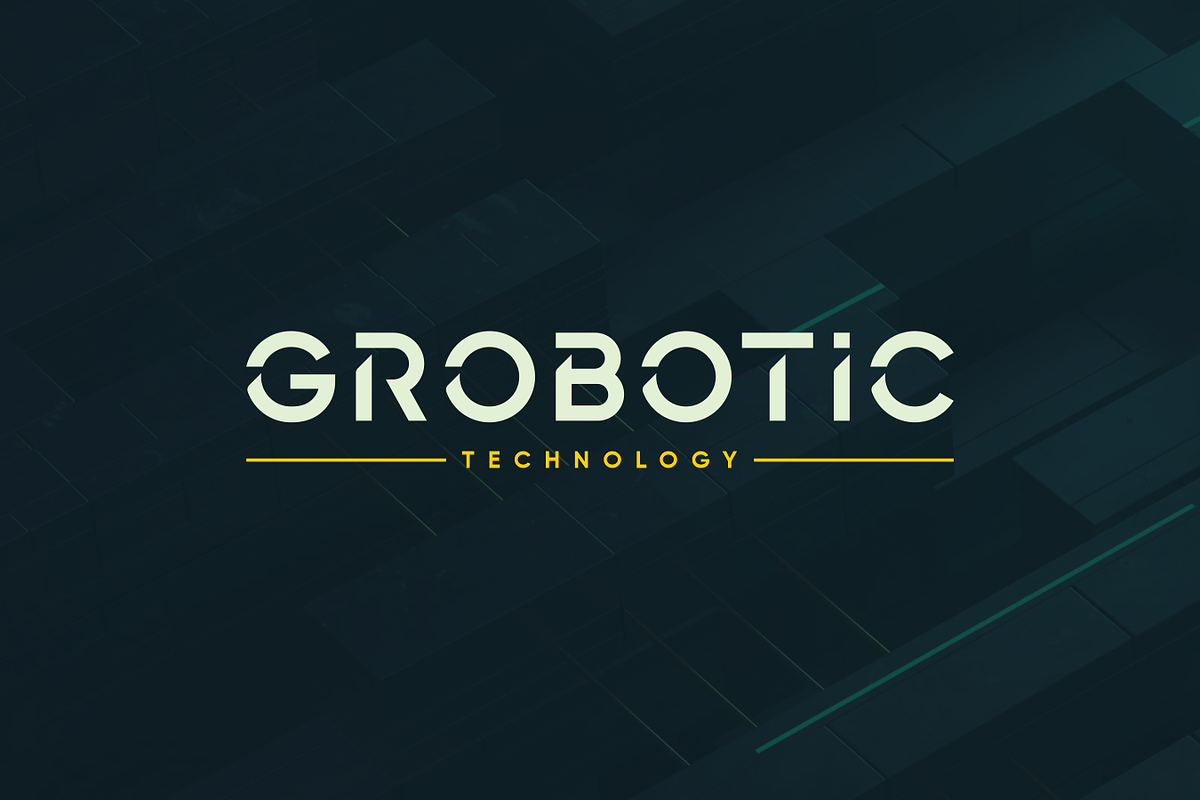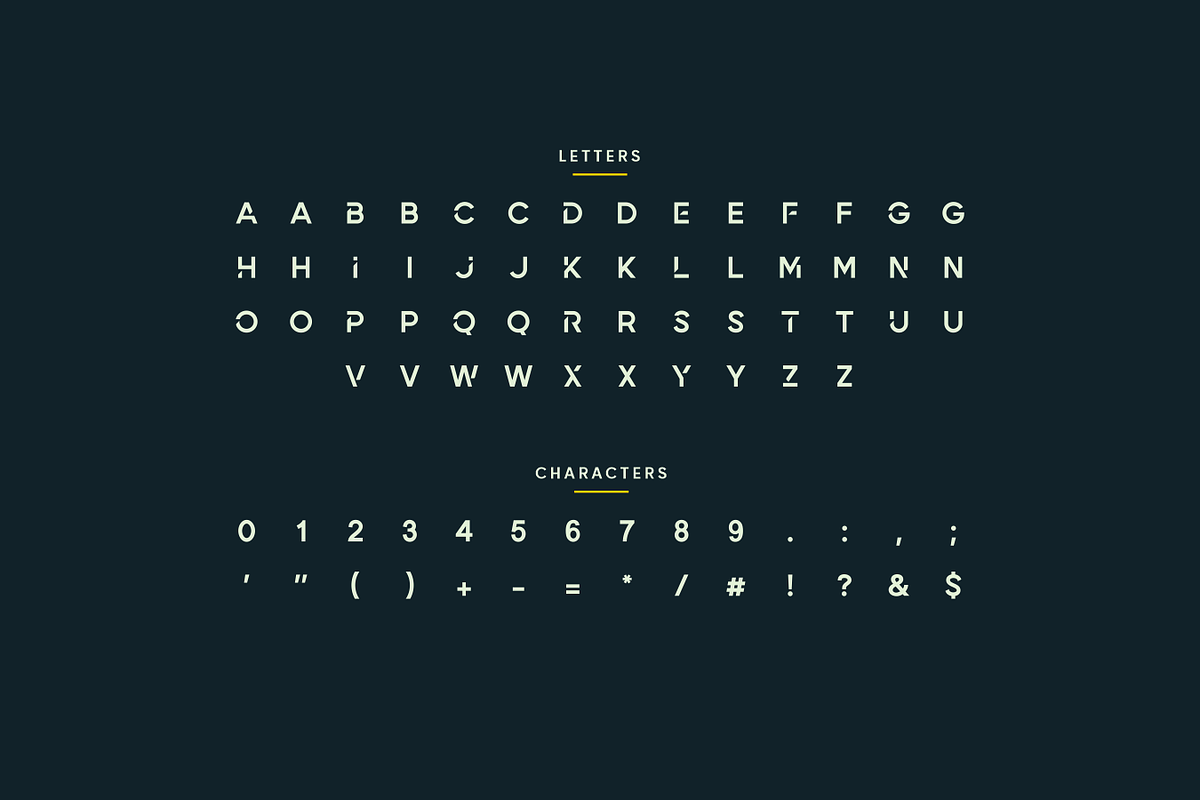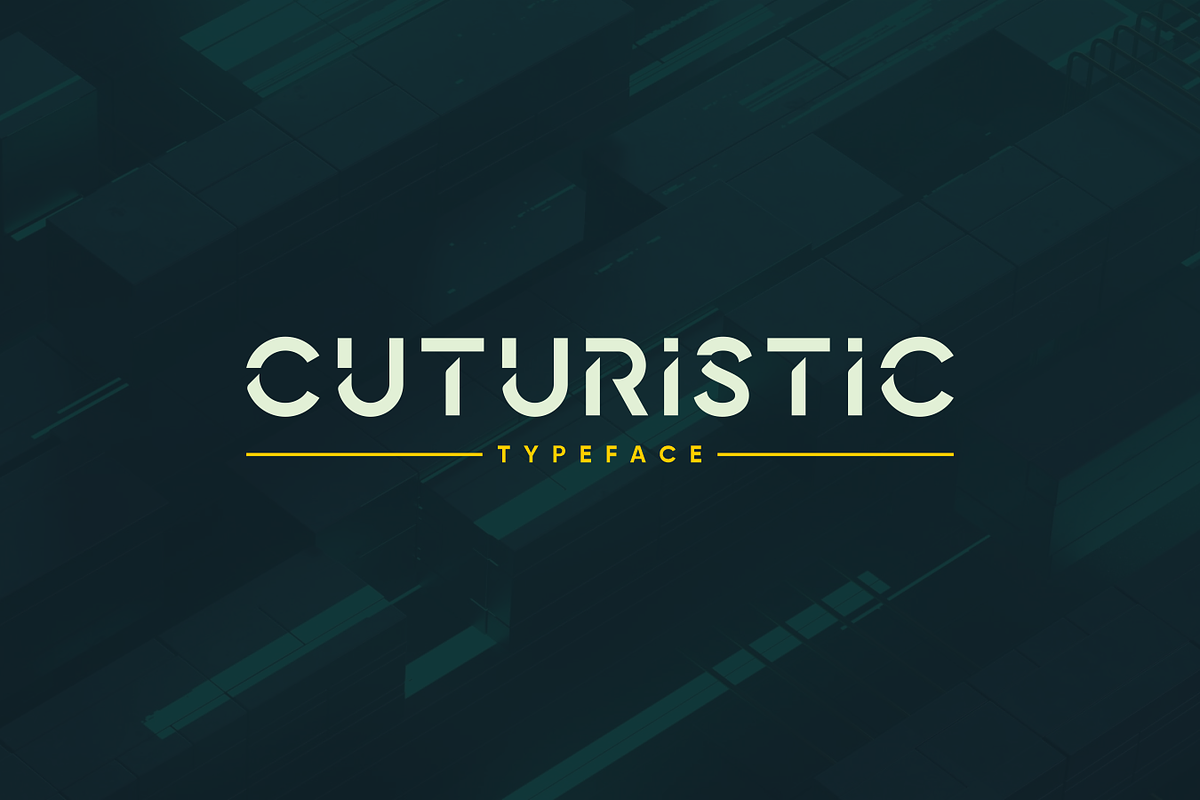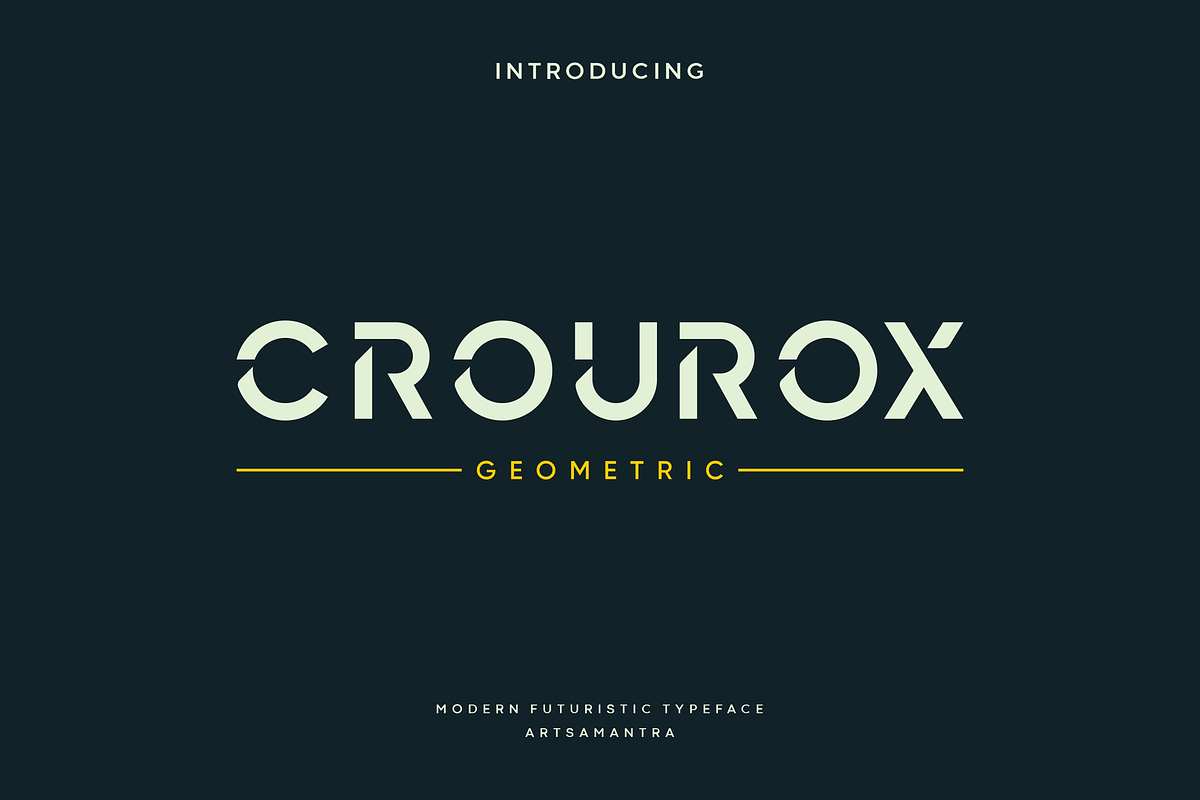
Crourox - Futuristic Typeface
Crourox is a font that is stylish, clean, clear, firm and still looks luxurious, comes with a different style of unique lowercase letters. This font is suitable for use in business, branding, logos, brochures, posters, etc. The dynamic and unique cut makes it very different, it makes it very modern and is the result of harmonizing the width and height especially in the capital letters to support the best possible legibility. Crourox goal is to become a universal weapon not only because it works well in headlines, type, and long copies, but also because of its subtle neutrality.